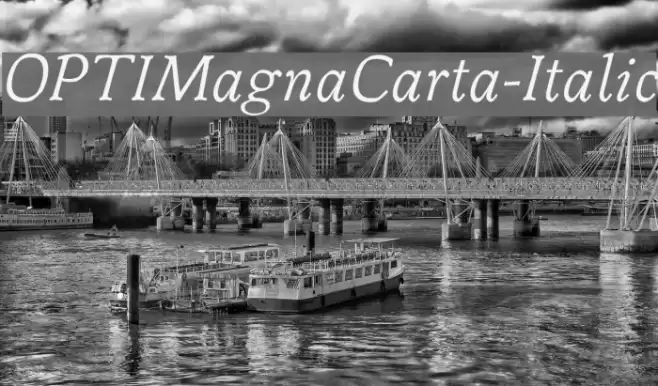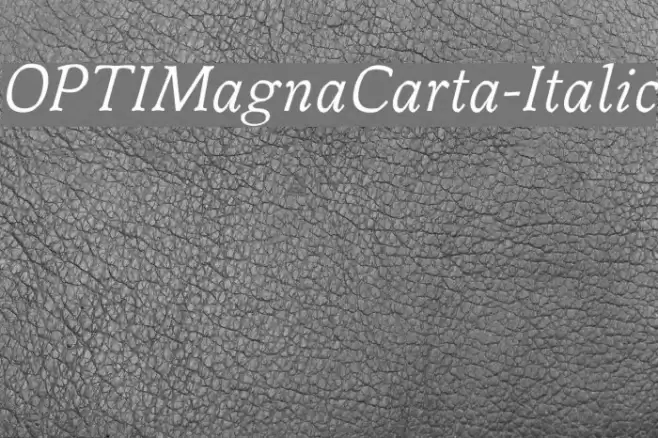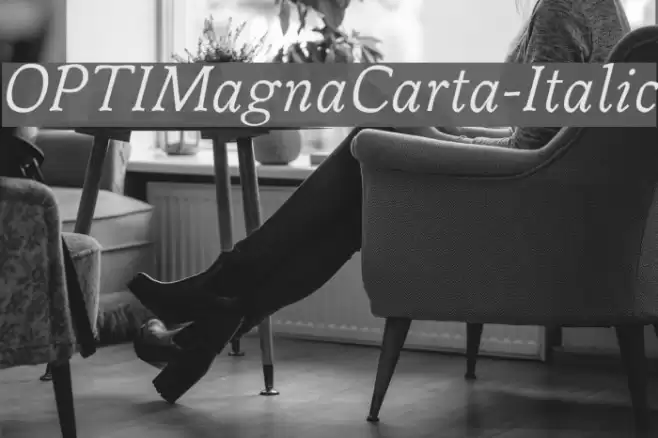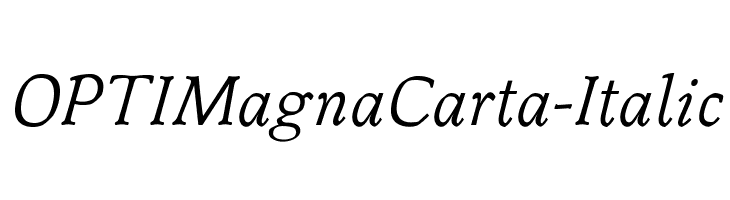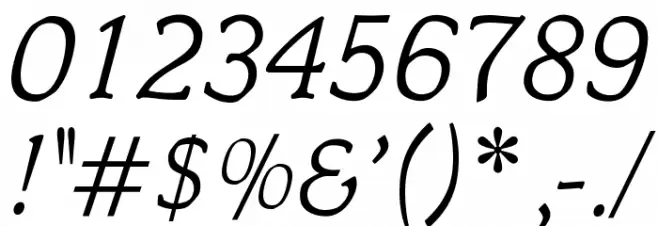
OPTIMagnaCarta-Italic Font
OPTIMagnaCarta-Italic Description
This font exudes a classic elegance with its italicized form, offering a refined and sophisticated appearance. The characters are gracefully slanted, providing a sense of motion and fluidity. Each letter is meticulously crafted with a slight serif, adding a touch of traditional charm. The uppercase letters stand tall and commanding, while the lowercase letters maintain a balanced and harmonious flow. The numerals are clear and distinct, ensuring readability. Special characters are thoughtfully designed, complementing the overall aesthetic. This font is ideal for projects that require a touch of class and elegance.
A classic, elegant italic font with refined serifs and a sophisticated appearance from Uncategorized fonts.
- Proposed Projects: Ideal for wedding invitations, formal event programs, luxury brand logos, and elegant editorial layouts.
- Overall Style: Classic
- Use Case: Headlines, Logos, Invitations